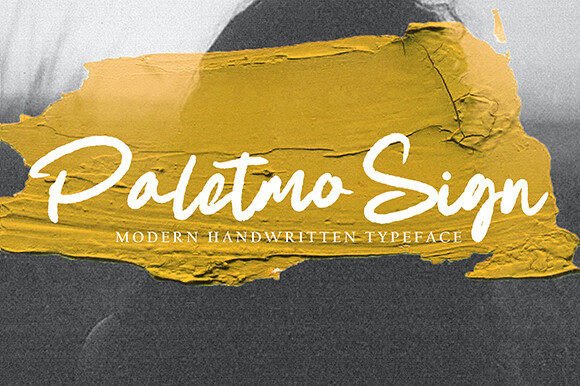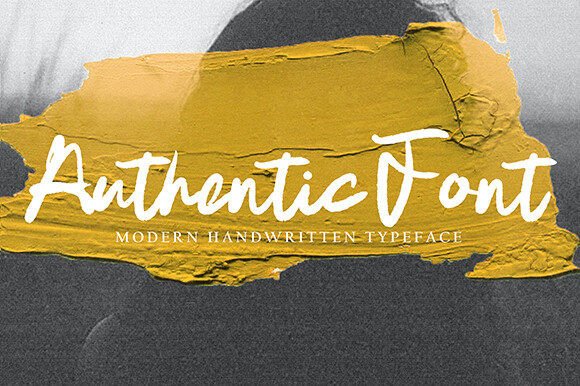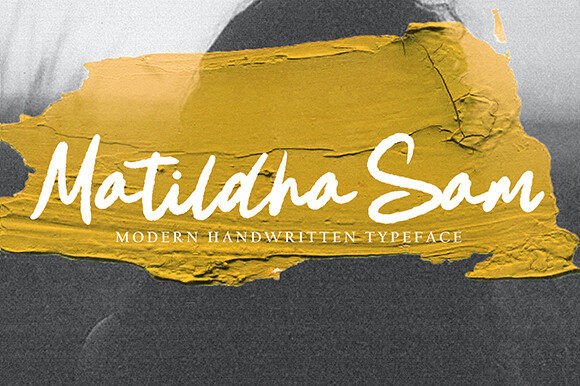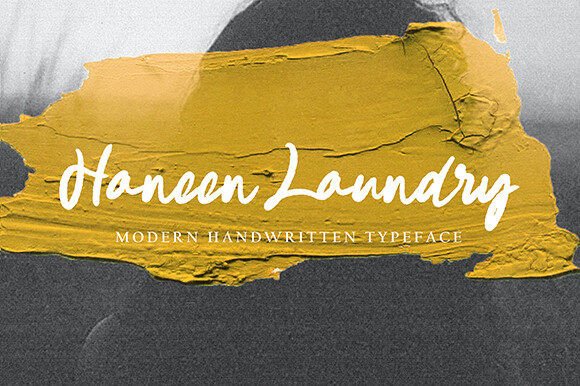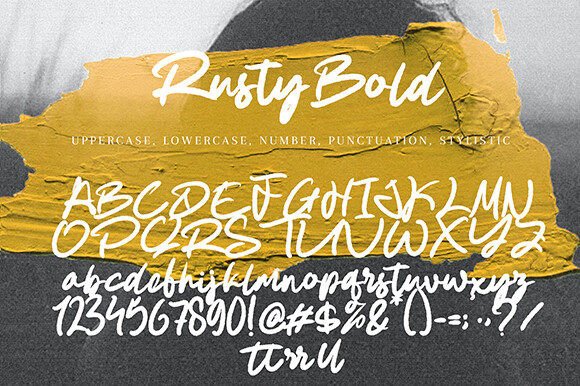
Introduction to Rusty Bold Font
Rusty Bold font is a captivating and authentically messy handwritten typeface that exudes character and charm.
With its uneven lines and distinctive strokes, this font adds a touch of artistic imperfection to your designs Perfect for giving your projects a unique and handcrafted feel, Rusty Bold font brings a delightful sense of raw creativity to invitations, labels, and more.